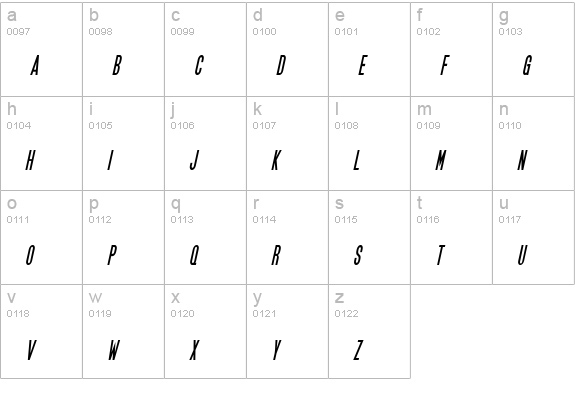
SF Movie Poster Condensed Bold Oblique Font Details
SF Movie Poster Condensed Bold Oblique is a strong, high-contrast, condensed-width, italic variant in the SF typeface family \xE2\x80\x94 well suited to headlines, attention-grabbing titles, and strong calls-to-action.
Introducing SF Movie Poster Condensed Bold Oblique font, a captivating and visually striking typeface that will transport you into the futuristic world of science fiction. Designed with a bold and condensed form, this font exudes a sense of strength and power, perfectly reflecting the thrilling and action-packed nature of the genre. With its oblique slant, SF Movie Poster Condensed Bold Oblique font adds an additional dynamic element to your designs, creating a sense of movement and energy. Whether you are creating movie posters, book covers, or any other sci-fi related artwork, this font will undoubtedly make a lasting impression on your audience. But what sets SF Movie Poster Condensed Bold Oblique font apart is not just its exceptional design, but also its accessibility. This font is freely available to download at FontsMarket.com, allowing you to unleash your creativity without any limitations. Say goodbye to restricted fonts and welcome the freedom to experiment and explore various design possibilities. Featuring a comprehensive character set, including uppercase and lowercase letters, numerals, punctuation marks, and special glyphs, SF Movie Poster Condensed Bold Oblique font offers versatility and flexibility in your designs. Its seamless legibility ensures that your message will be conveyed effortlessly, even in the most visually intense compositions. So, if you are ready to take your sci-fi designs to the next level, look no further than SF Movie Poster Condensed Bold Oblique font. Download it for free at FontsMarket.com and let your imagination soar as you bring your futuristic visions to life. Embrace the power of this remarkable typeface and captivate your audience with its bold and dynamic presence.